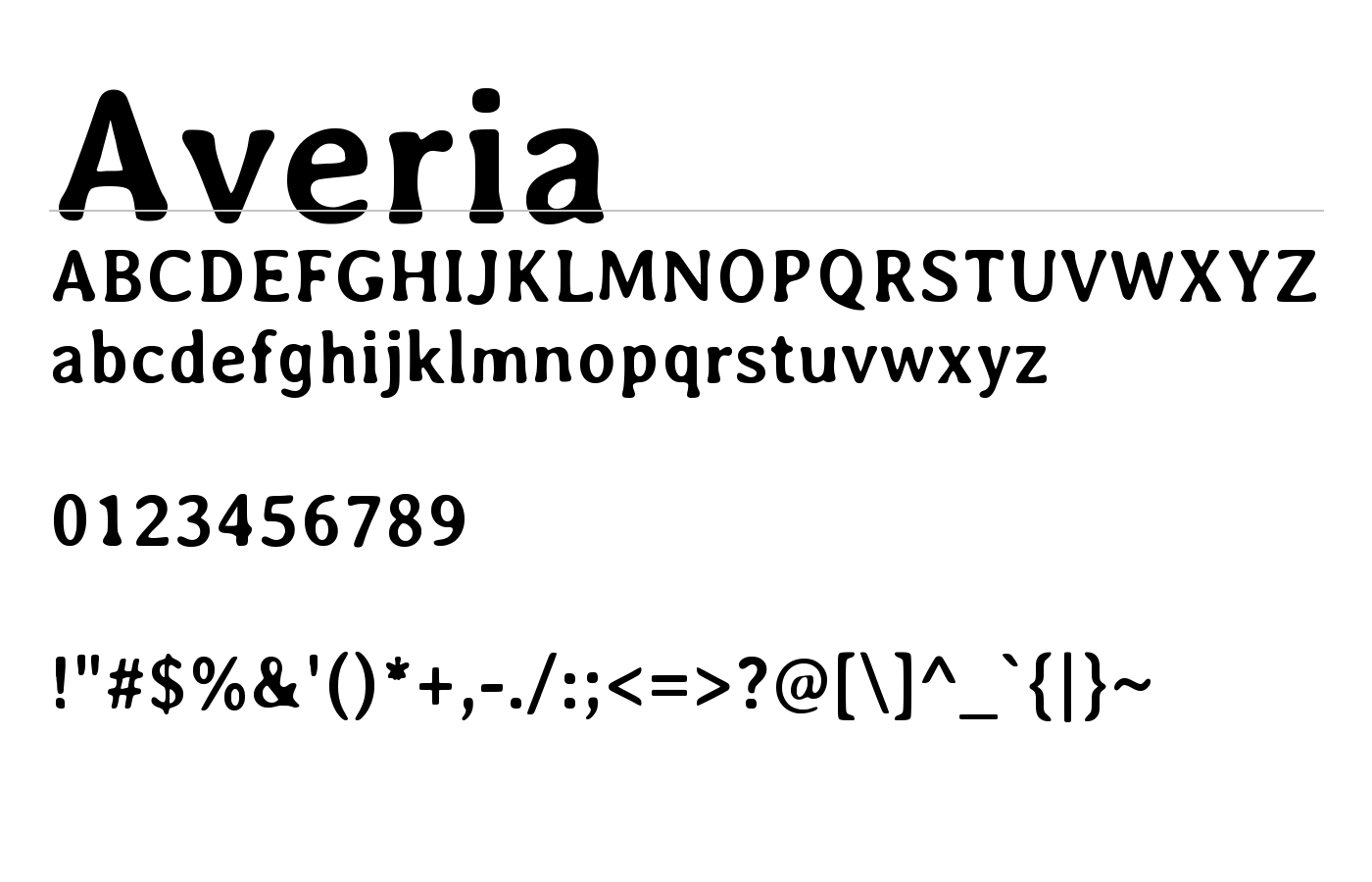
Averia is a playful and friendly slab serif font with organic, slightly irregular shapes that give it a hand-crafted feel. Its moderate weight and open letterforms make it highly readable and approachable, suitable for casual and creative designs. This font works great for logos, children's books, and informal branding where a warm, inviting personality is desired.
Averia Font
About Averia Font